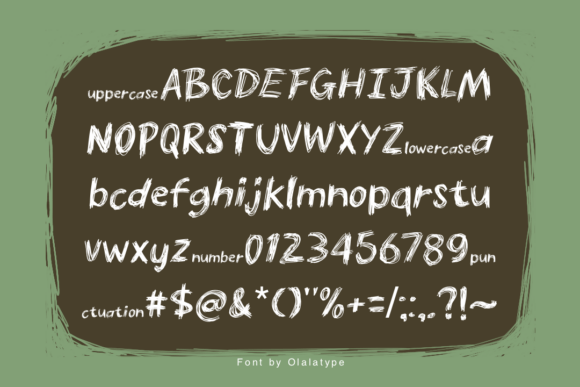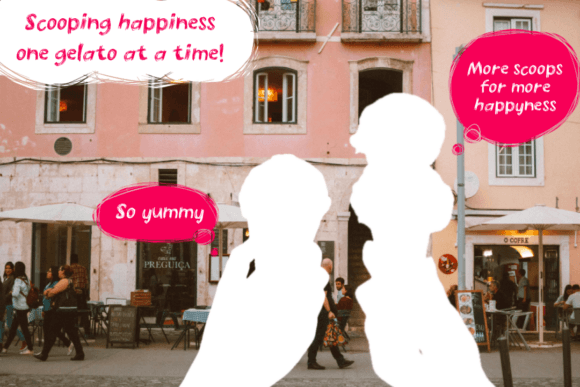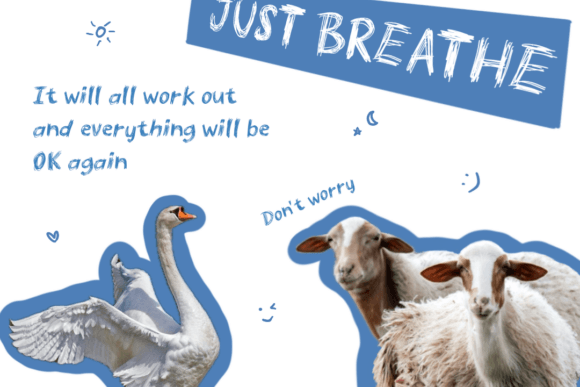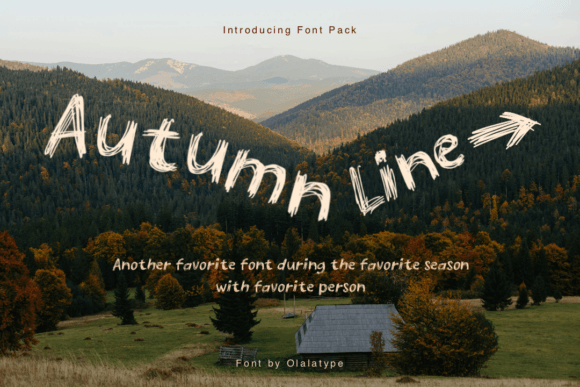
The Charm of Autumn Line Font: A Handwritten Masterpiece
I’ll never forget the design project that led me to discover the enchanting world of handwritten fonts, particularly one that felt like a breath of fresh air – the Autumn Line Font. I was working on a craft project for a client who wanted a unique, informal aesthetic that captured the essence of youthful creativity. As I scrolled through font libraries, I stumbled upon this gem that seemed to leap off the screen with its raw, free-spirited vibe.
A Personal Review: The Good, the Great, and the Quirks
- ✨ Authentic Handwritten Feel: The Autumn Line Font embodies the imperfections and spontaneity of hand-scribbled writing, making it perfect for projects that require a personal touch.
- ✅ Versatility: Its informal charm makes it suitable for a wide range of creative projects, from craft tutorials to social media graphics.
- 💫 Unique Aesthetic: The font’s endearing imperfections and untidy lettering add a relatable quality that sets it apart from standard typography.
While the Autumn Line Font is a delightful find, it’s not without its quirks. For instance, ⚠️ some letters may appear a tad inconsistent in size or spacing, which could be seen as a limitation for projects requiring precision. However, these quirks only add to its charm, making it a font that grows on you.
Another thing to consider is that 🤔 the font might not be the best fit for body text due to its informal nature. It’s ideal for headlines, titles, or short paragraphs where you want to make a statement.
One of the joys of using the Autumn Line Font is exploring its OpenType features and glyphs. This font comes with a range of stylistic alternates and glyphs that allow for further customization. For instance, you can swap out certain letters for alternate versions that offer a different look or feel. This feature is especially useful in creating varied yet cohesive designs.
The Designer Inspiration Behind Autumn Line Font
The Autumn Line Font was inspired by the simple joys of handwritten notes and the beauty of imperfection. Its designer sought to capture the essence of youthful creativity and spontaneity, creating a font that feels both personal and relatable. This backstory adds depth to the font, making it more than just a typography – it’s a statement of creativity and individuality.
Q: Is the Autumn Line Font suitable for professional projects?
A: Absolutely! While it has an informal charm, its uniqueness can make your professional projects stand out in a crowded market.
Q: How does the Autumn Line Font compare to other handwritten fonts?
A: The Autumn Line Font stands out due to its authentic handwritten feel and unique imperfections, making it a great choice for projects that require a personal touch.